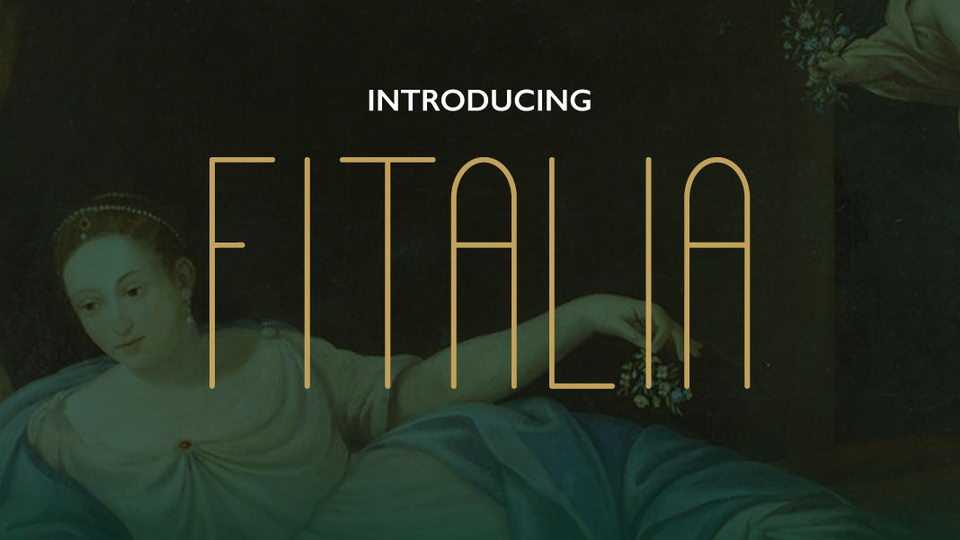
Download Fitalia font, an all-caps sans-serif typeface. It has an elegant look due to its simple shape, with fairly narrow width and soft edges. The clean and modern geometric form makes Fitalia ideal for display usage.